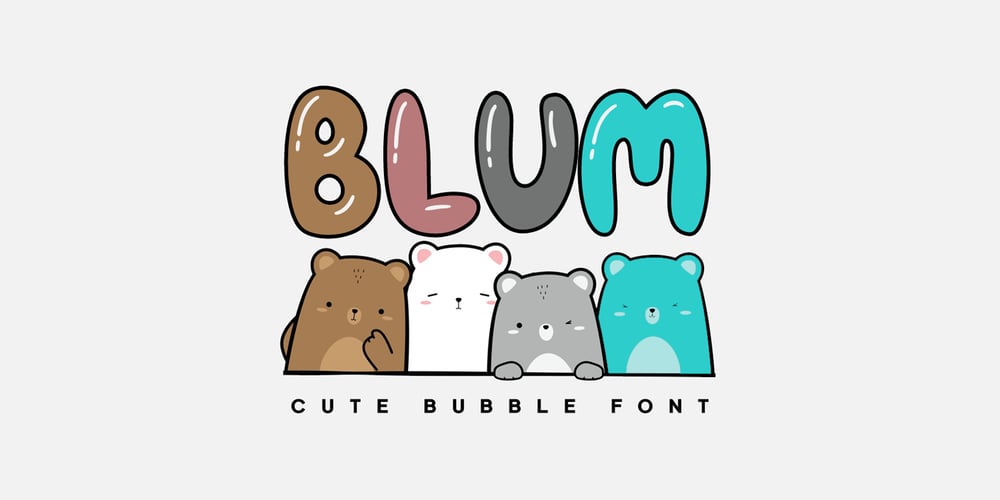
Blum Font Family was designed by Lisha Joseph and published by Designova. Blum contains 2 styles and family package options. BLUM is a beautiful bubble font for lovely logotypes, branding & display usage. This font is perfect for creating outstanding logos, promotional content, and marketing graphics that can really grab the attention of your visitors. Please see the examples shown above to get an idea about the capability of this font.This font is specially handmade with great OpenType features in mind, each weight includes extended language support including Western European & Central European sets. A total of 249 glyphs are included.